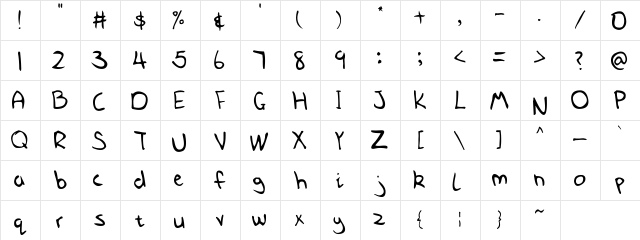
BreakfastCereal Regular Free Font
BreakfastCereal Regular
Design Context for BreakfastCereal
BreakfastCereal is a composed and adaptable typeface that performs quietly and consistently across a wide range of design contexts.
Pro Tip: Use BreakfastCereal in both headline and body roles to test its range before committing to a single application.